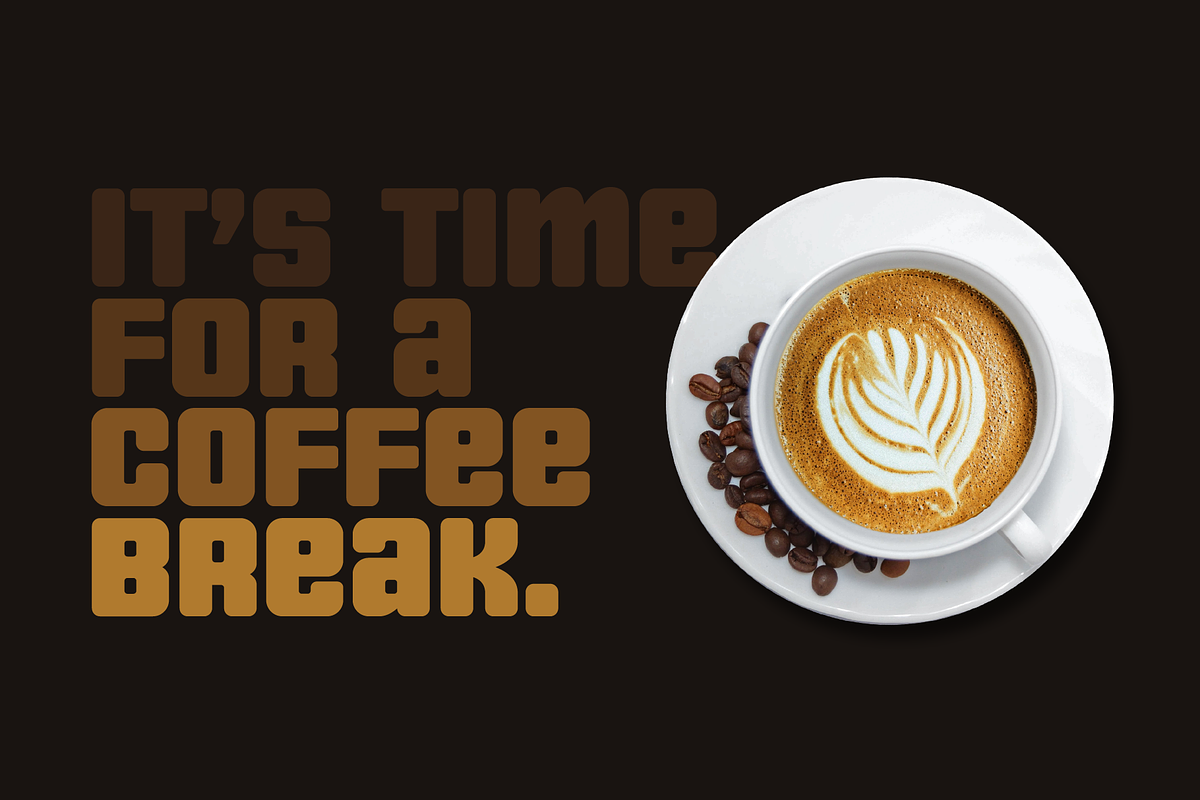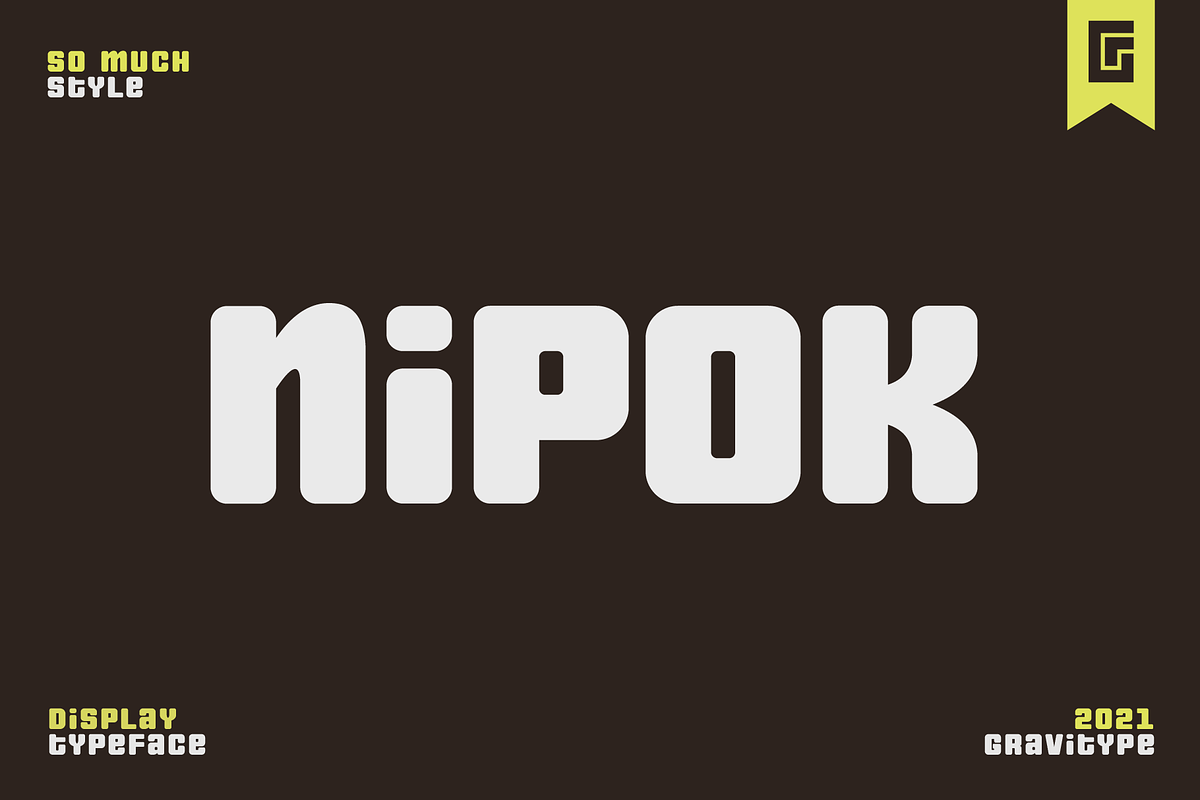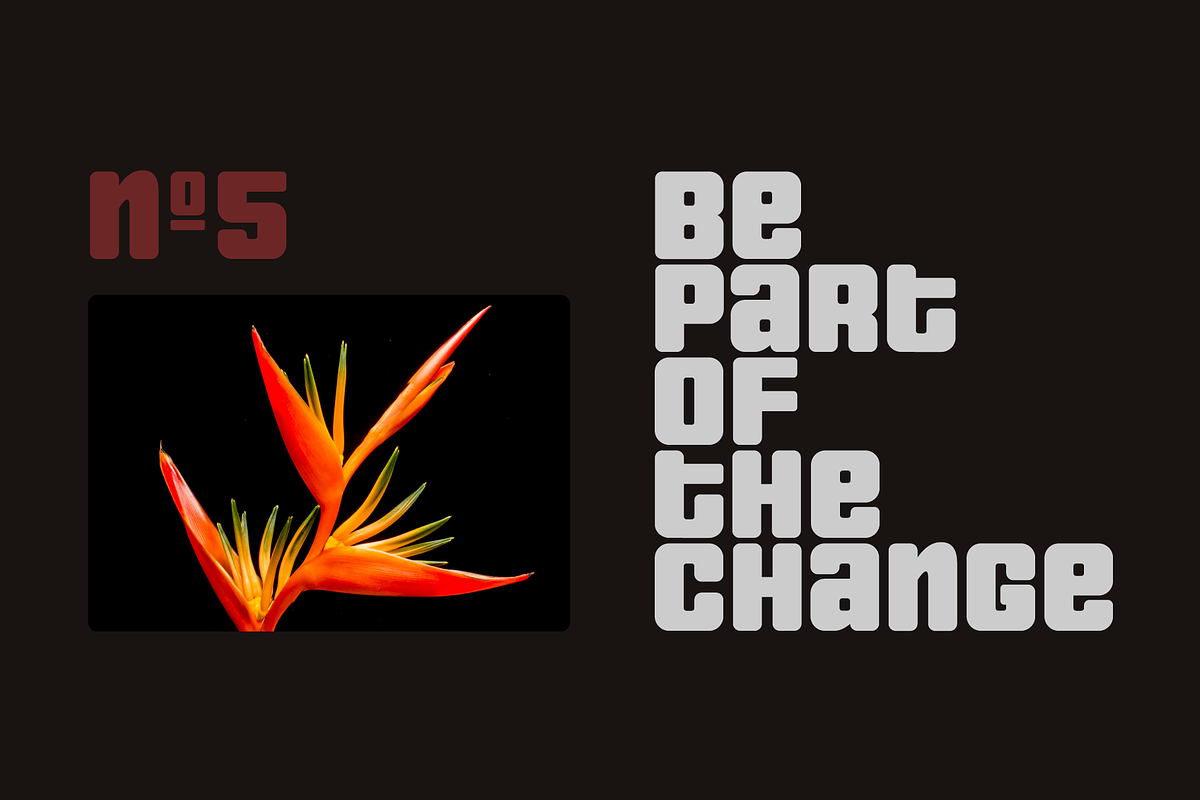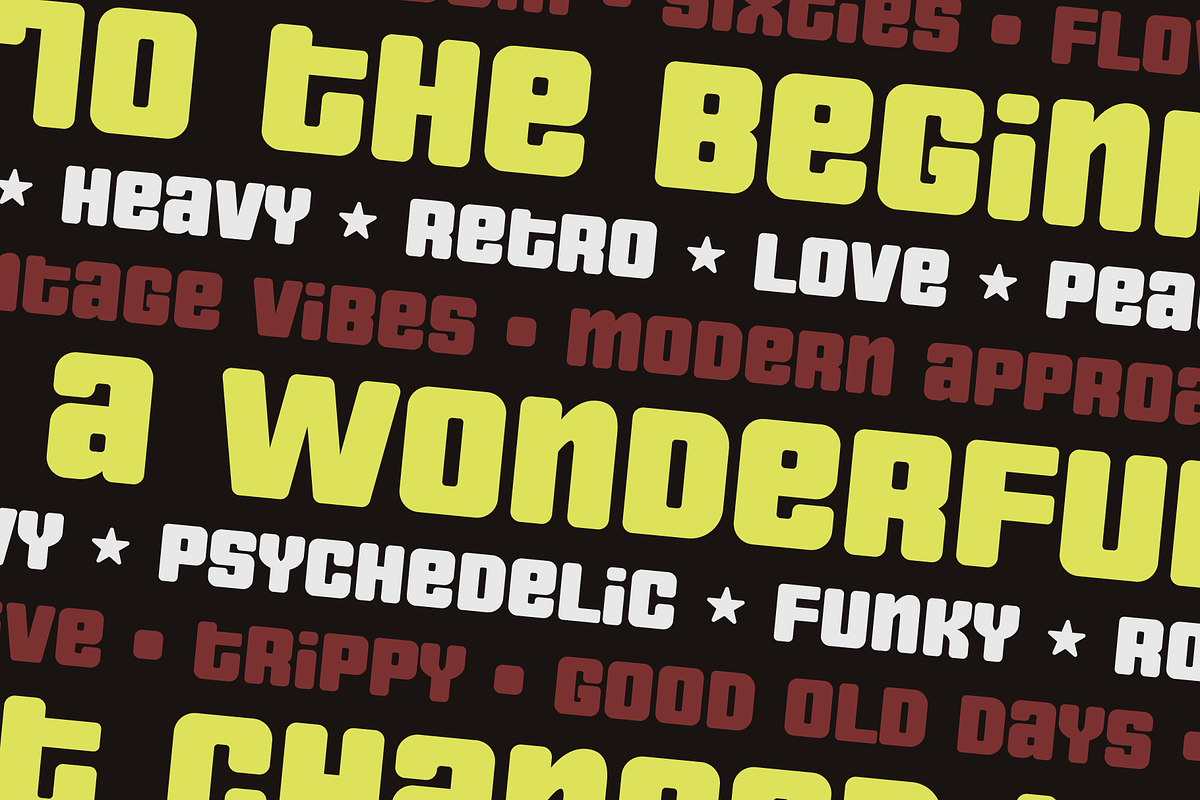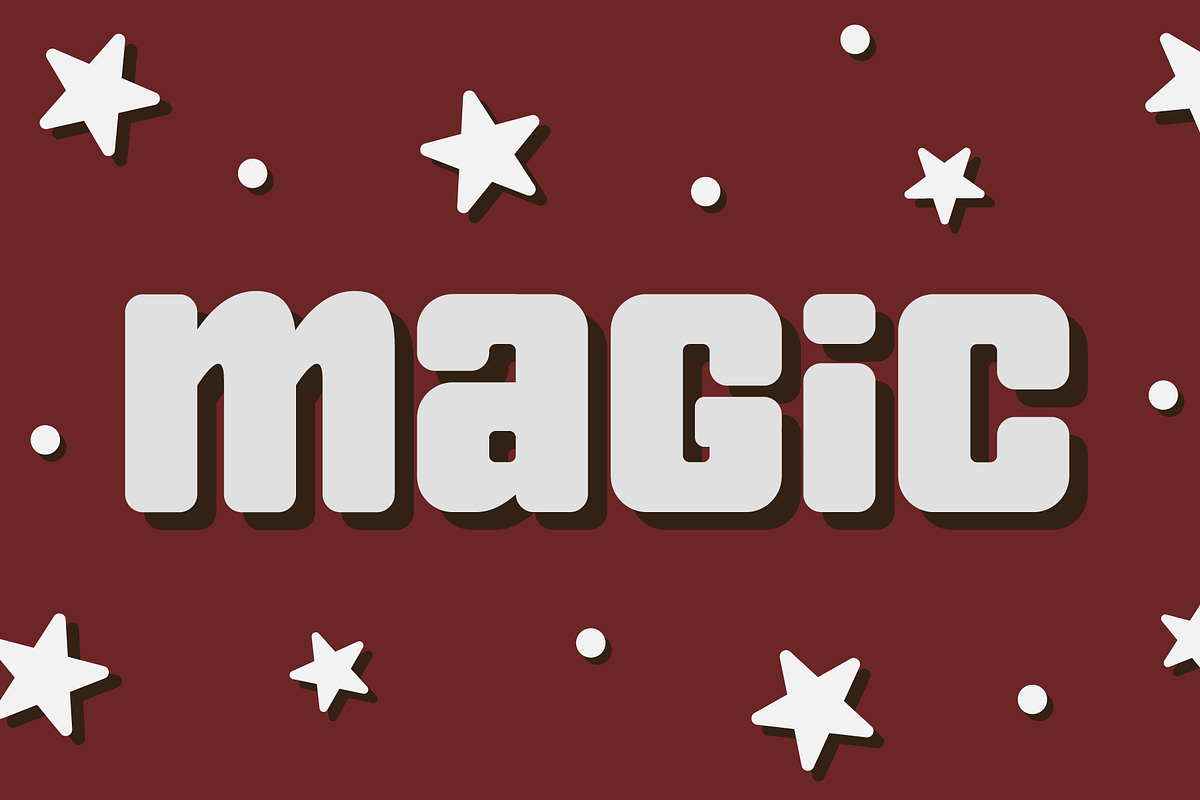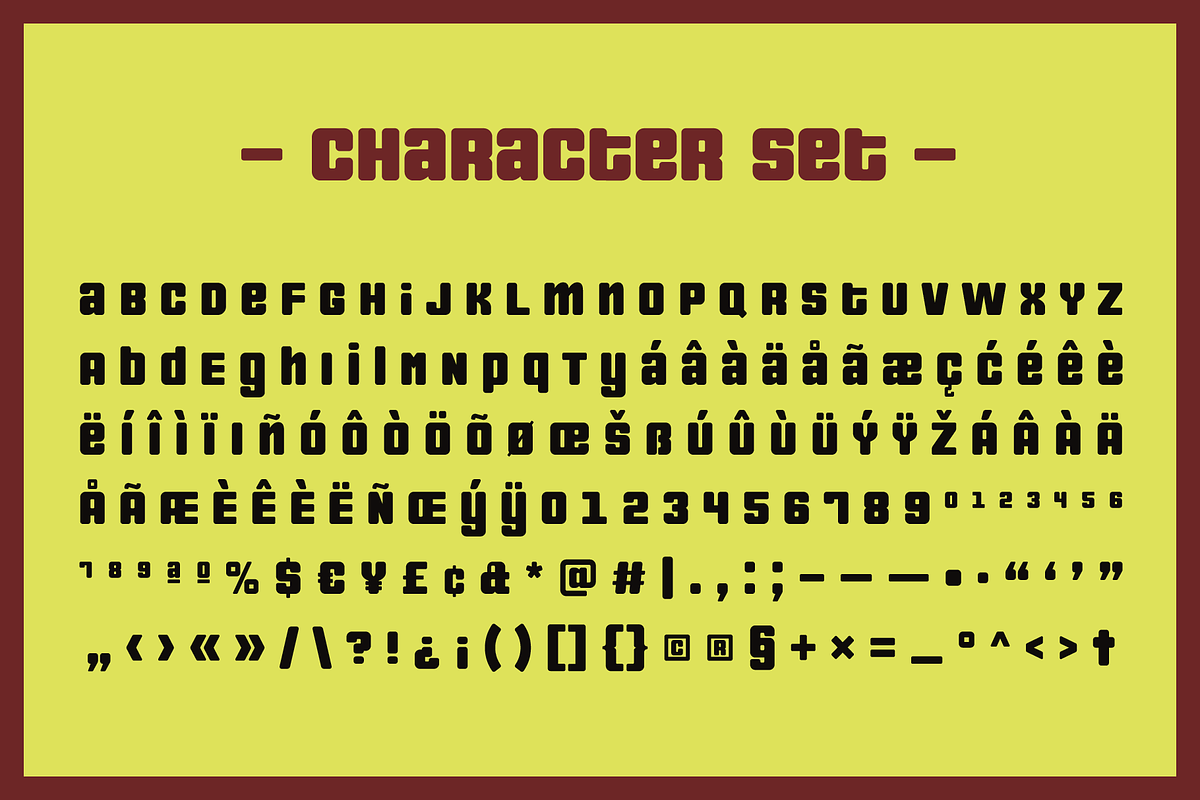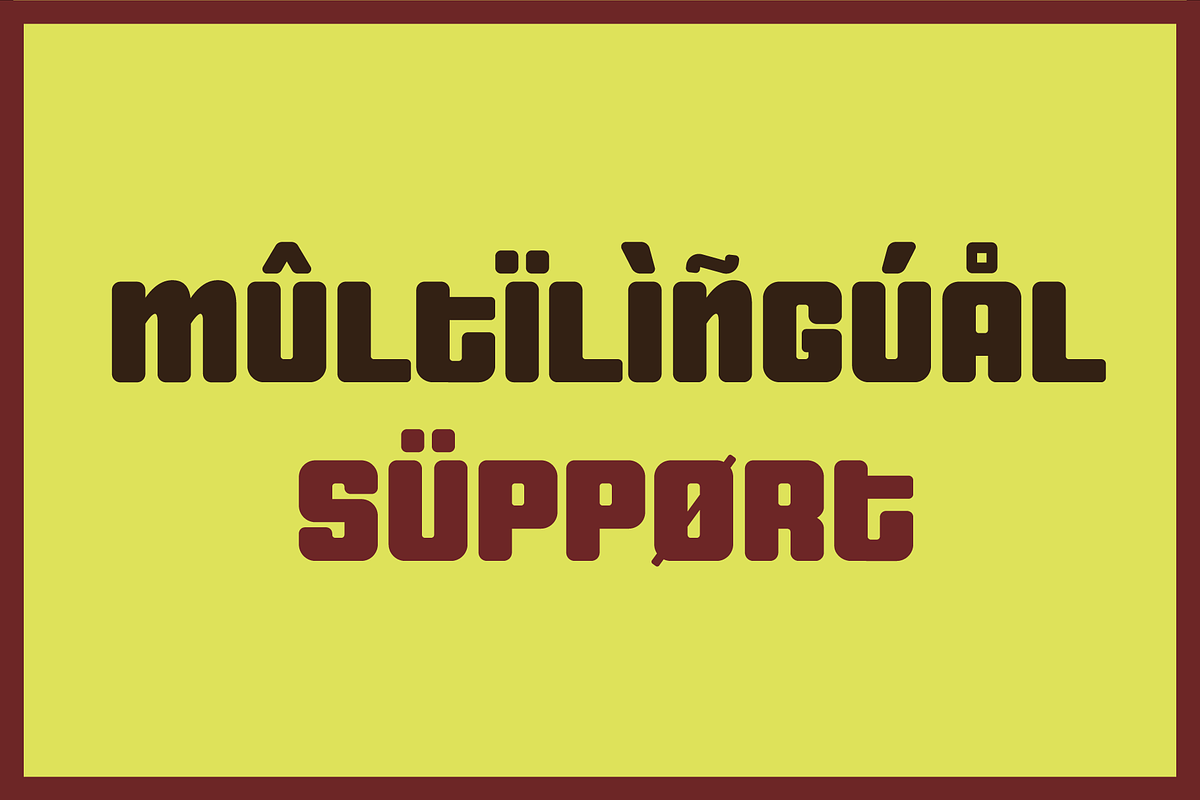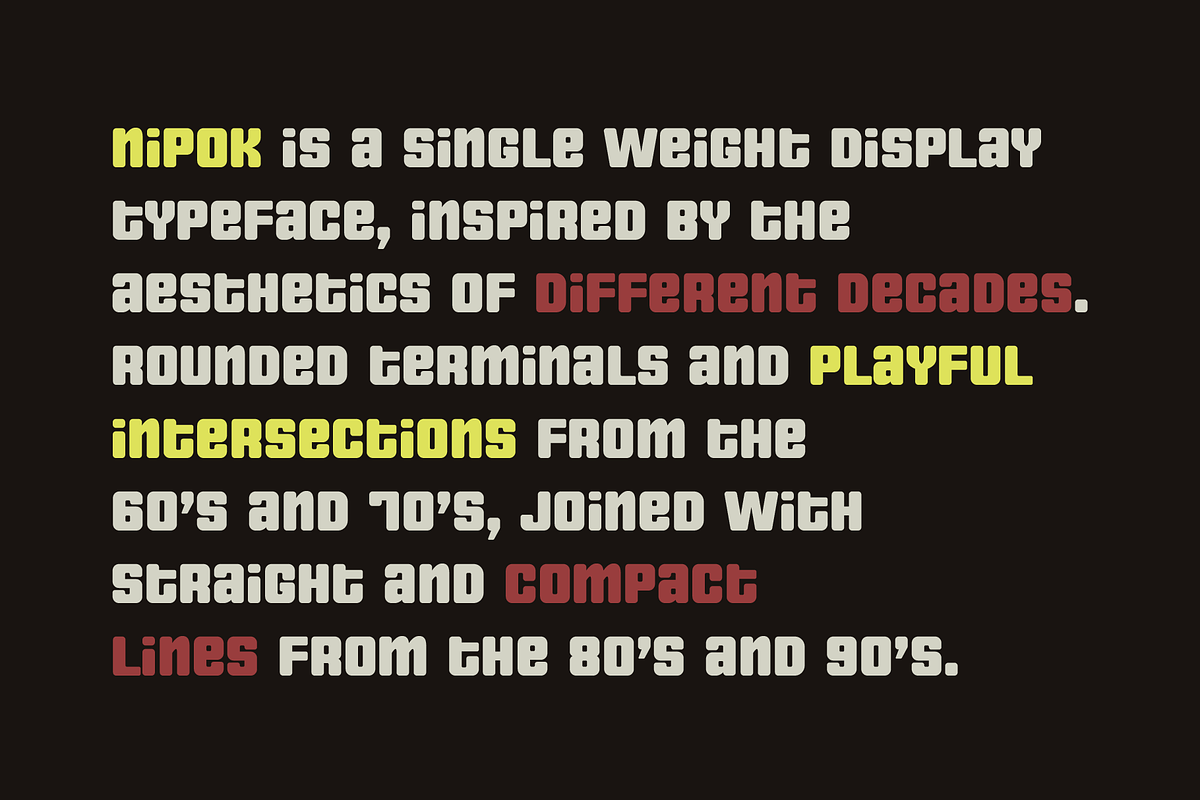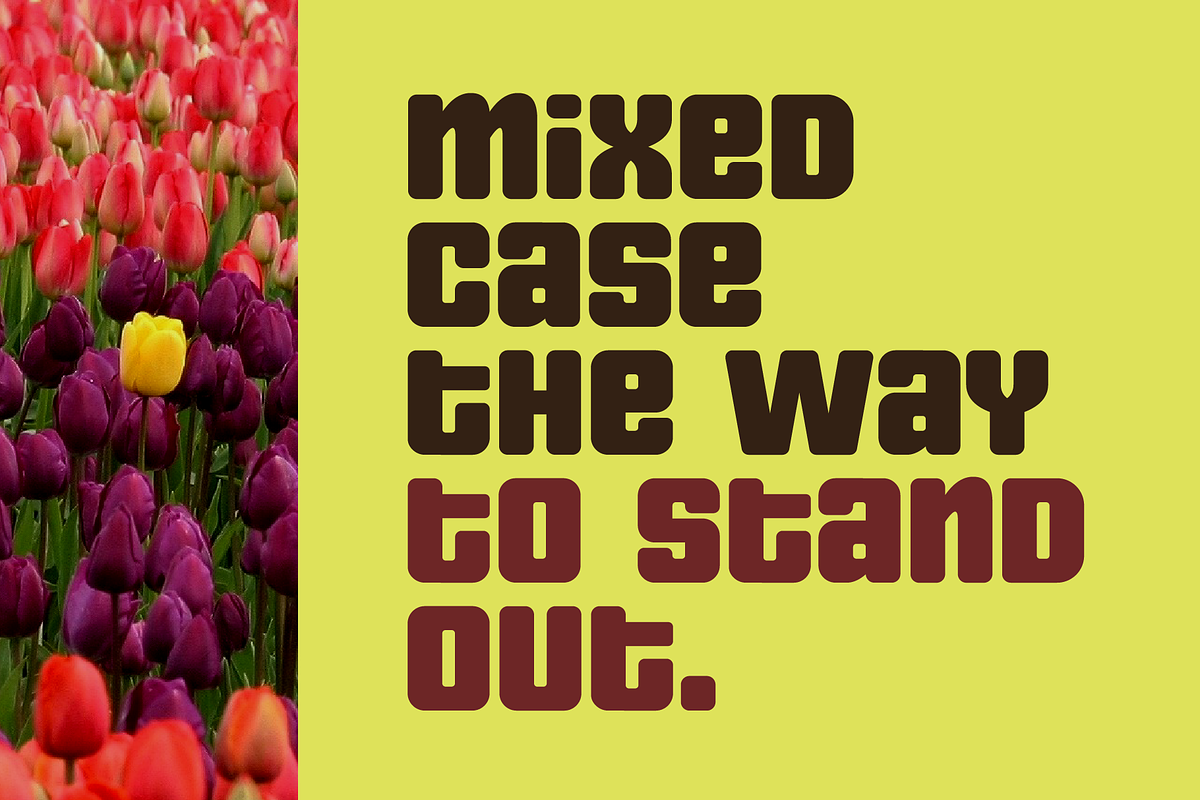
Nipok - Unicase Fancy Retro Display
Nipok is a single weight display typeface, inspired by the aesthetics of different decades. Rounded terminals and playful intersections from the 60’s and 70’s, joined with straight and compact lines from the 80’s and 90’s.
The particular style is given by the alternation of upper and lower case letters, chosen to fill the empty spaces greatly and create harmony.
In addition, alternates are included to give you more stylistic options. While by default this font is a semi unicase, the alternative glyphs extend the Ascent and Descent metrics.
Multilingual support is available.